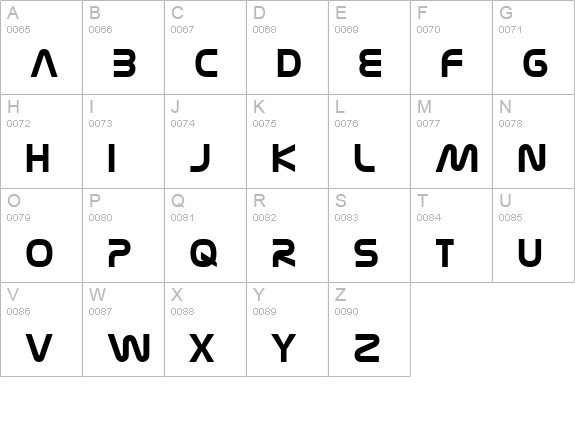
TR Nasalization Font Details
TR Nasalization is a modern and sleek sans-serif font that exudes a sense of sophistication and elegance. Its clean lines and rounded edges make it a versatile choice for a wide range of design projects, from branding to editorial layouts. The font's unique geometric shapes give it a futuristic and contemporary feel, making it perfect for creating a bold and impactful visual presence. What sets TR Nasalization apart is not only its striking appearance but also its accessibility. This font is available for free download at FontsMarket.com, allowing designers and creatives to easily incorporate it into their work without any cost barriers. With its stylish design and effortless accessibility, TR Nasalization is a must-have addition to any designer's toolkit.